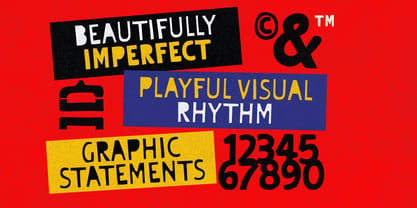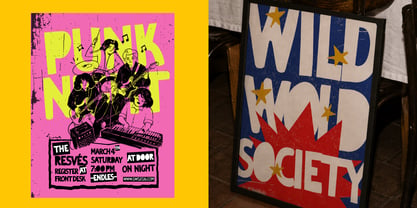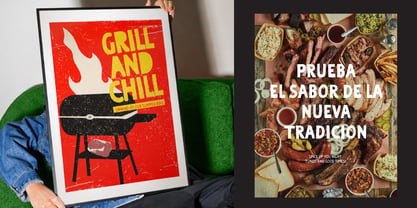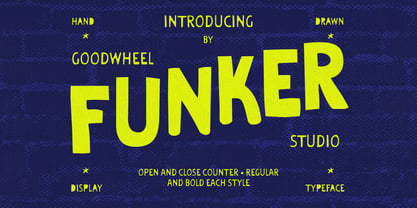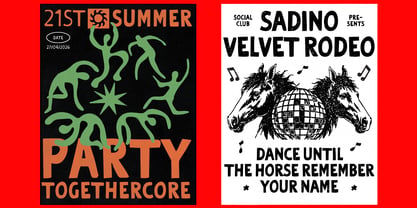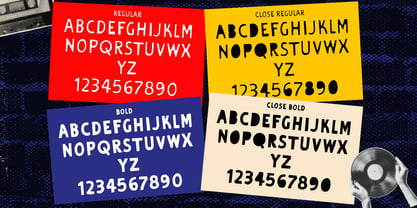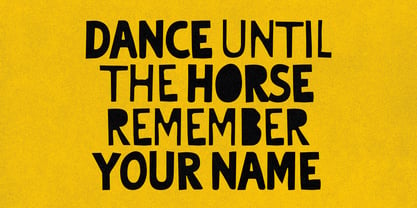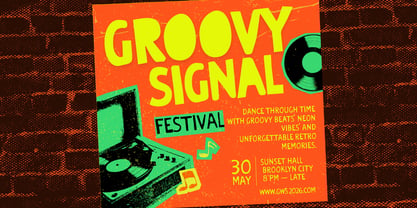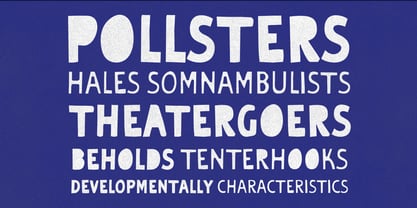
Funker
by Goodwheel Studio
The Funker Font Family was designed by Rizky Setyaludin and published by Goodwheel Studio. Funker contains 4 styles and family package options. More about this family
FUNKER is a bold handcrafted display font packed with playful energy and expressive personality. Inspired by vintage folk lettering, hand-painted signs, and imperfect handmade typography, FUNKER features organic shapes, irregular proportions, and charming character details that make every word feel alive. Its strong presence makes it perfect for logos, branding, packaging, posters, café menus, restaurant identities, children's products, social media graphics, merchandise, and editorial headlines. Designed to stand out while maintaining a warm and approachable feel, FUNKER brings authenticity and creativity to any project. Add a touch of fun, character, and handcrafted charm to your next design with FUNKER.
Designers: Rizky Setyaludin
Foundry: Goodwheel Studio